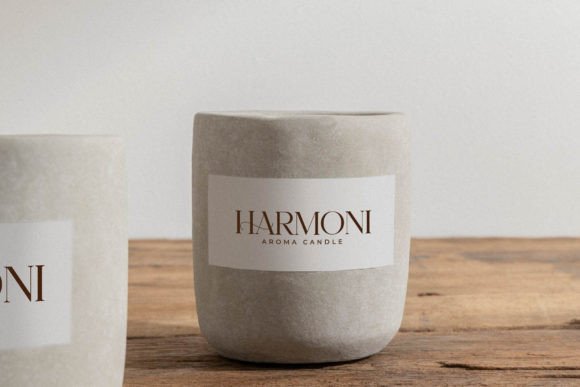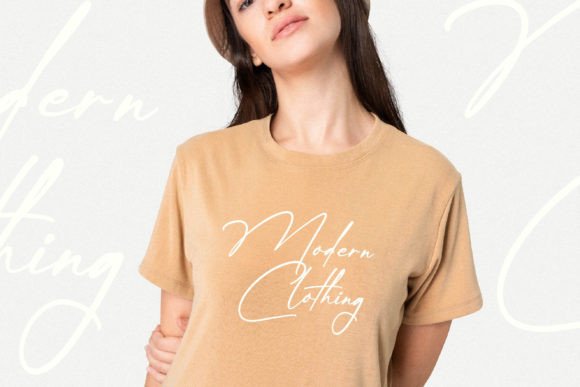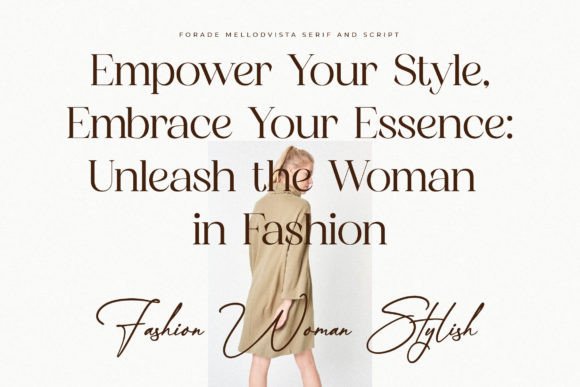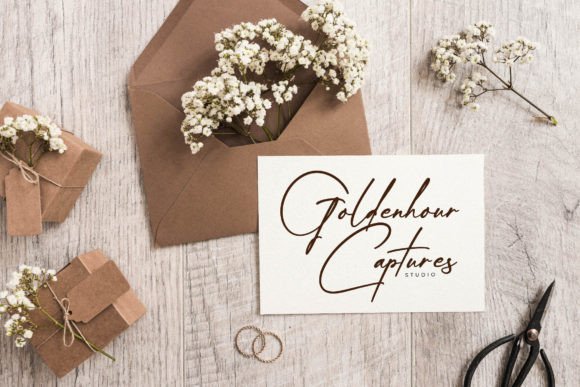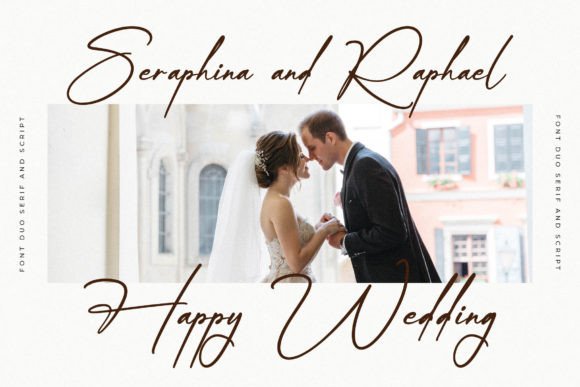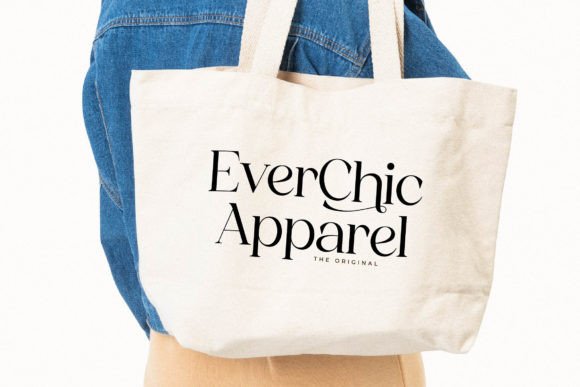
Introduction to Forade Mellodvista Font
As a designer, have you ever found yourself stuck in a creative rut, searching for the perfect font to elevate your project? The moment of discovery when you stumble upon a game-changing design resource is exhilarating, and it’s exactly what happens when you meet Forade Mellodvista Font. This enchanting duo typeface seamlessly blends classic serifs with elegant script elements, offering a harmonious balance of sophistication and playfulness.
Forade Mellodvista Font is more than just a visually appealing design tool – it’s a valuable asset for designers looking to add a touch of elegance to their work. Whether you’re creating invitations, branding materials, or anything in between, this font duo effortlessly adapts to your needs. With its transparent background and high-quality design, Forade Mellodvista Font is perfect for any creative project, making it a must-have in your design arsenal.
Key Features of Forade Mellodvista Font
- Perfect for designers looking for a unique and creative font to elevate their design projects.
- Unique characteristics: bold, modern, and elegant, making it suitable for a wide range of design applications.
Honest Review: Forade Mellodvista Font
What works well about the Forade Mellodvista Font is its versatility. It’s perfect for use in headings, titles, and even body text. The font’s elegant and modern design makes it suitable for a wide range of creative projects, from fashion to technology.
Here are some of the key features that I love about the Forade Mellodvista Font:
- High-quality design that’s perfect for headings and titles
- Modern and elegant design that’s suitable for a wide range of creative projects
One limitation of the Forade Mellodvista Font is that it’s not as customizable as some other fonts. However, for a free download, it’s hard to complain about that.
Overall, I’m really impressed with the Forade Mellodvista Font. It’s a great addition to any designer’s toolkit, and I highly recommend it for any creative project.
To get the most out of the Forade Mellodvista Font, use it for headings, titles, and other text elements that require a unique and creative touch. This font is perfect for designs that need a touch of sophistication and elegance.